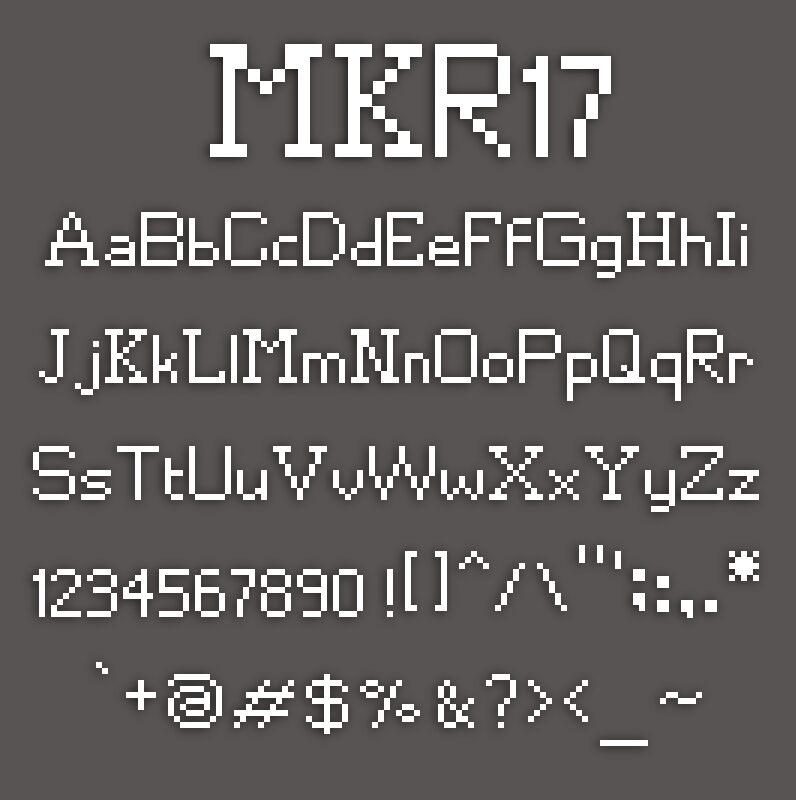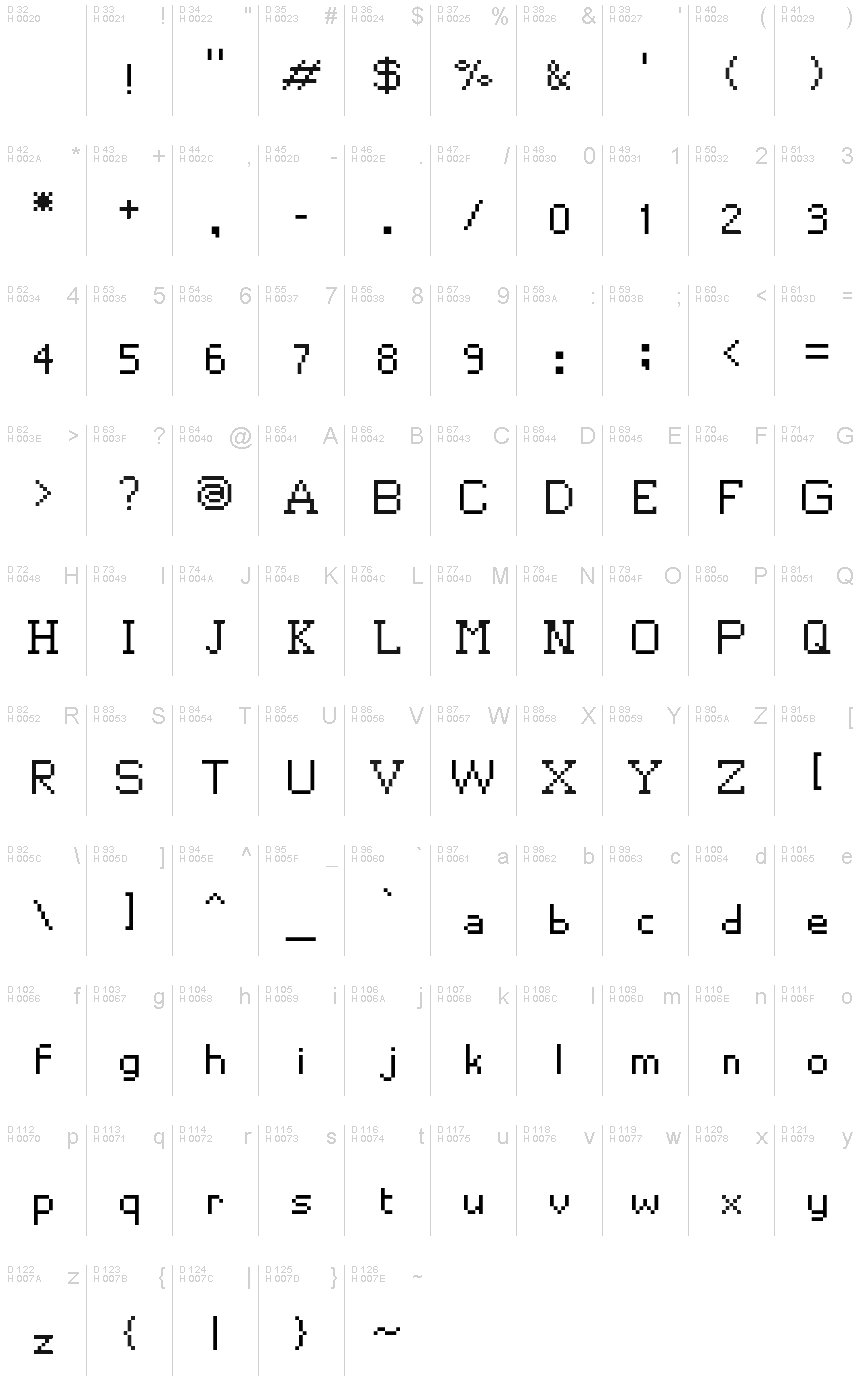
MKR17
MKR17 is a captivating bitmap font designed by Makorie, exuding a distinct pixelated charm. Its sharp, angular letterforms evoke a retro-futuristic aesthetic, reminiscent of early digital landscapes. The font's bold, monochromatic appearance lends itself remarkably well to eye-catching headers, logos, and titles, infusing them with a bold, uncompromising presence.
MKR17's versatility shines through, making it a versatile choice for a wide range of applications, from retro-inspired game interfaces to modern graphic design projects. Its striking visual impact and legibility at small sizes make it a compelling option for user interfaces, infographics, and impactful typographic compositions.
This is the first pixel font I've ever created, so it's not perfect, but I'm pleased with how it turned out.